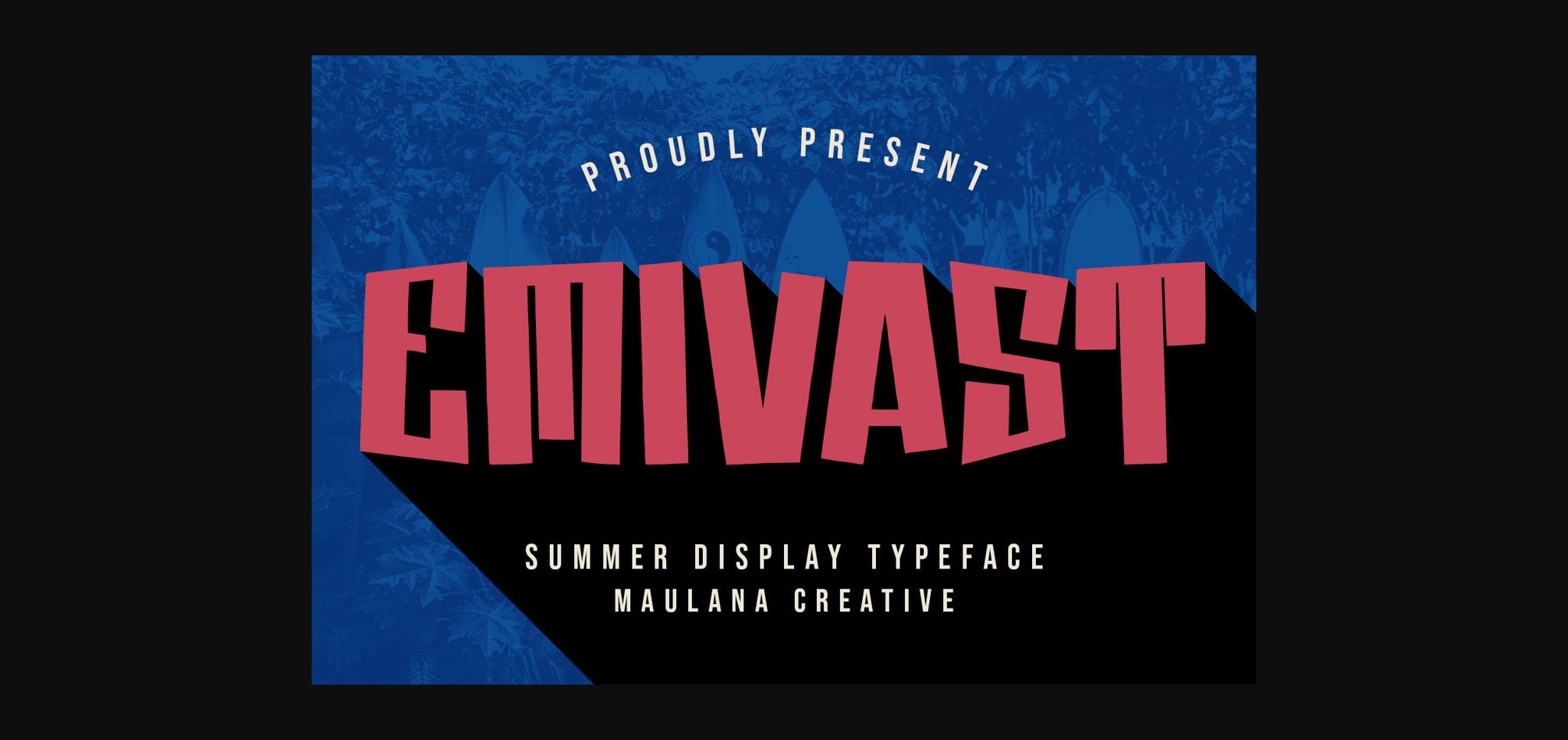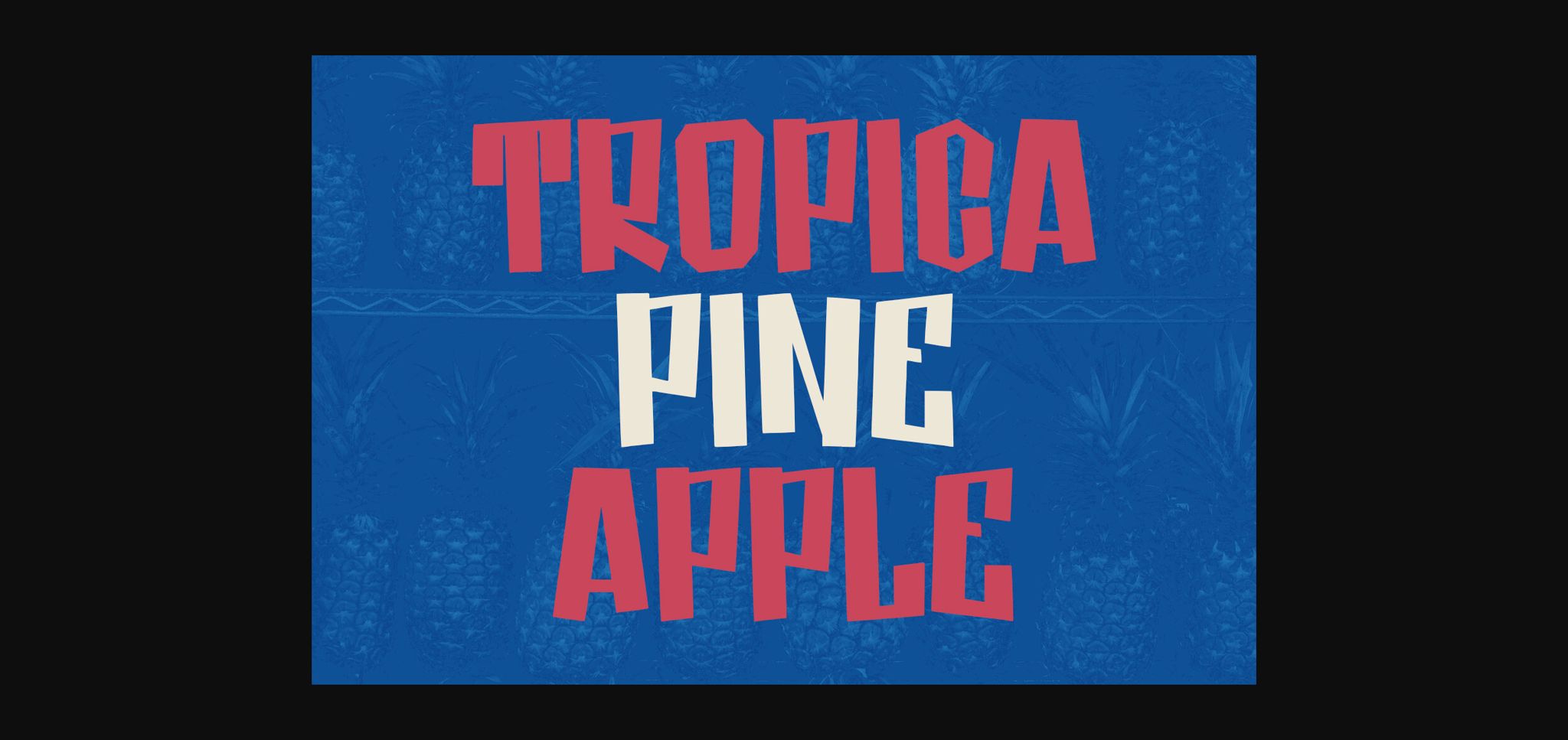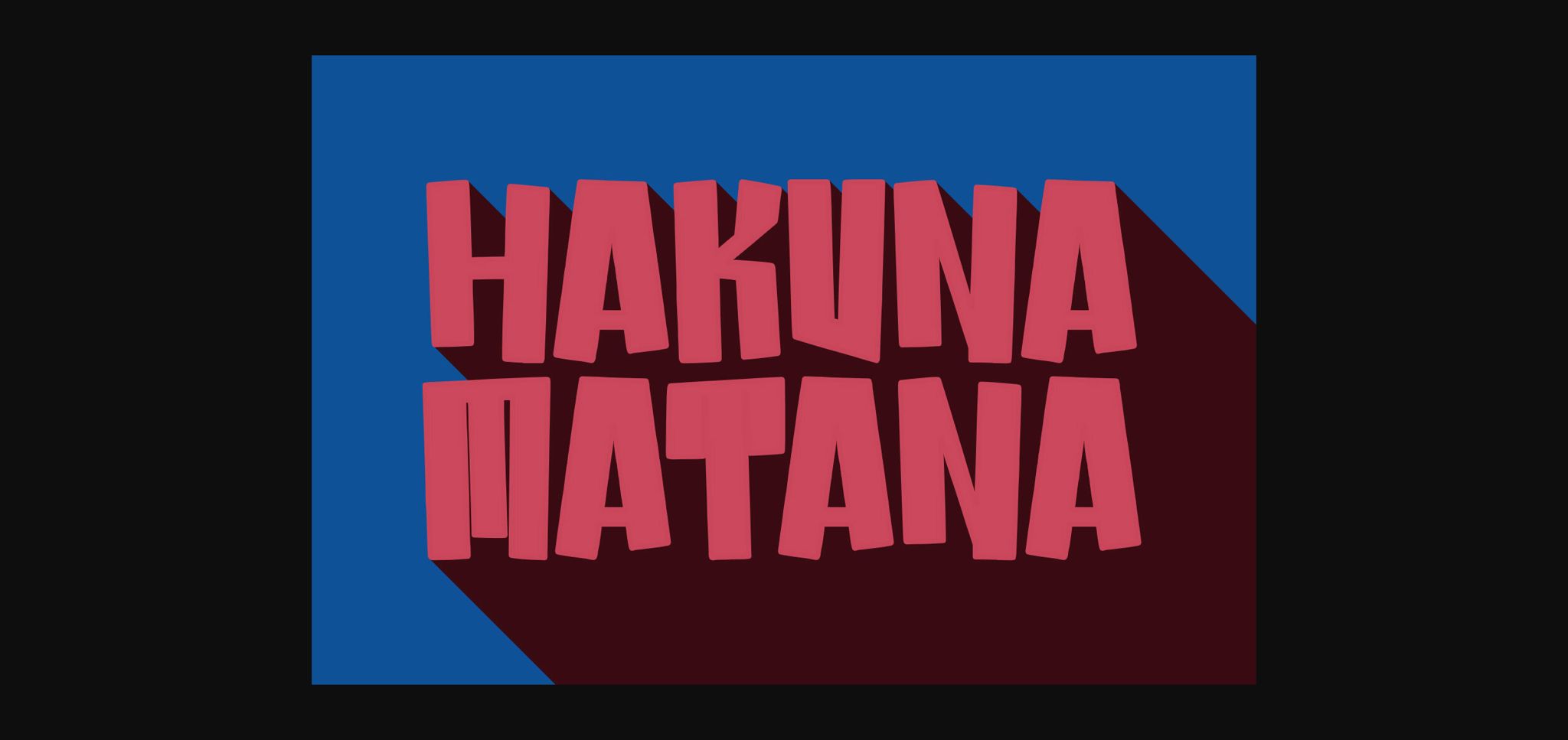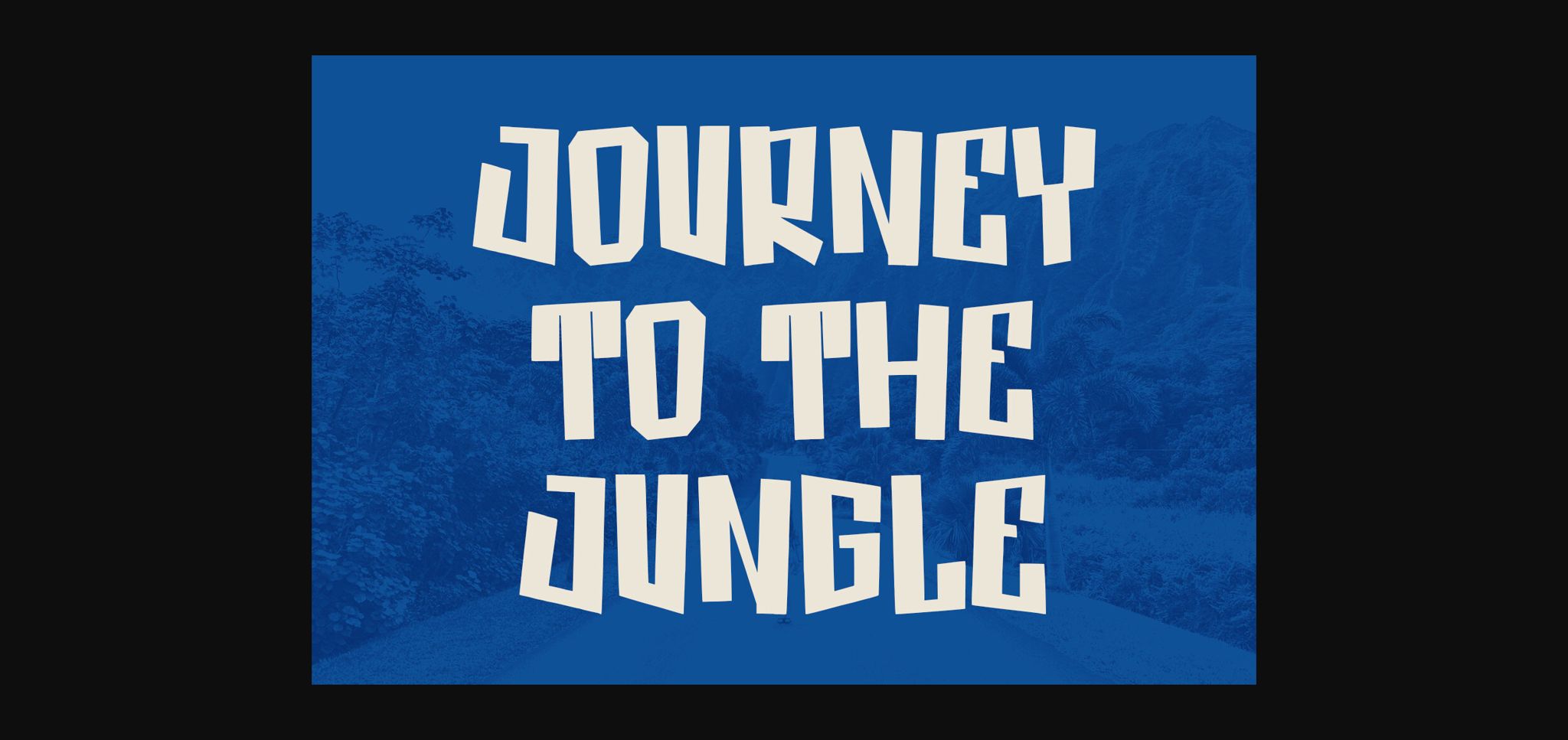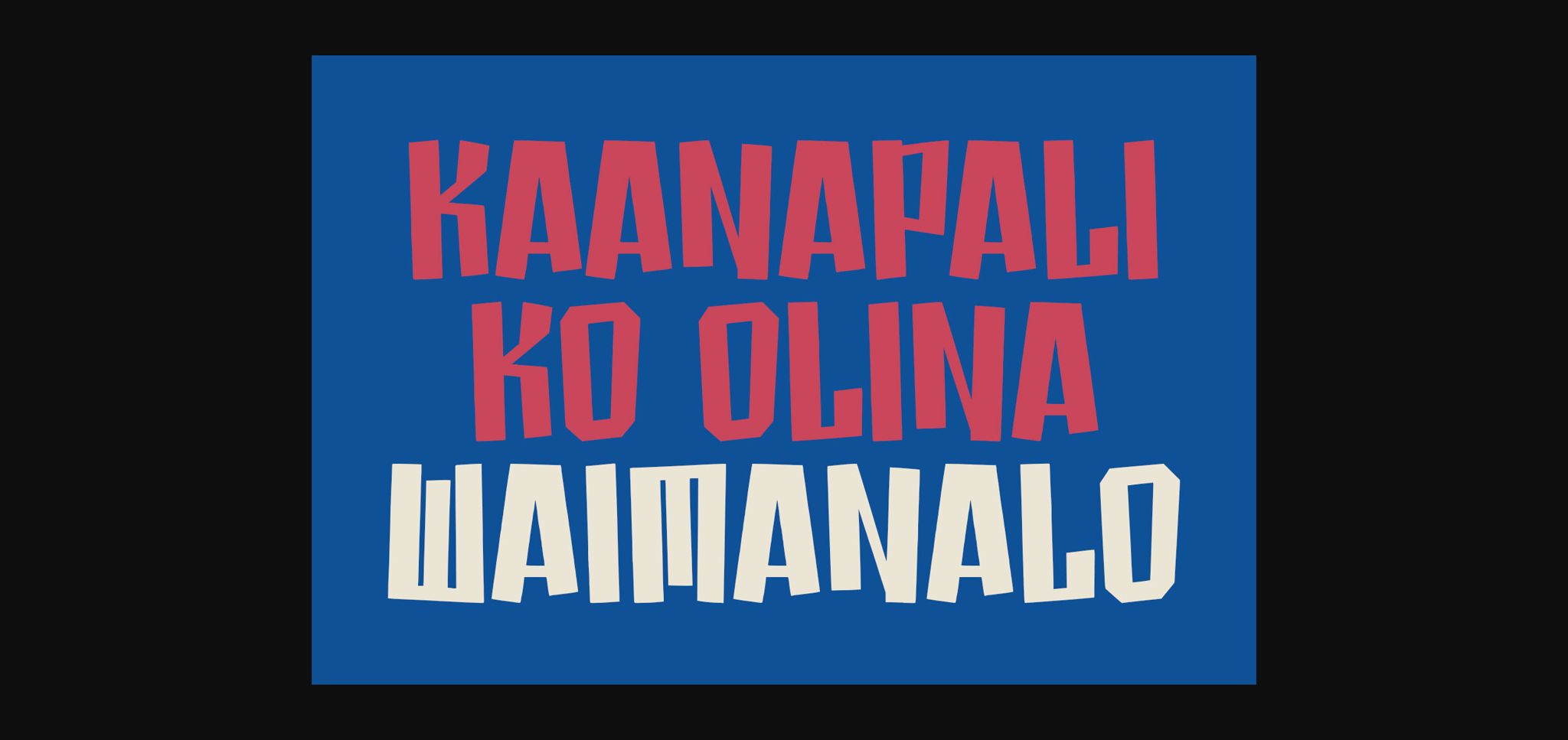
About Emivast Font
Emivast summer display font. Heavy stroke, fun character with a bit of ligatures. To give you an extra creative work. Emivast summer display font support multilingual more than 100+ language. This font is good for logo design, Social media, Movie Titles, Books Titles, a short text even a long text letter and good for your secondary text font with script or serif. Make a stunning work with Emivast summer display font.